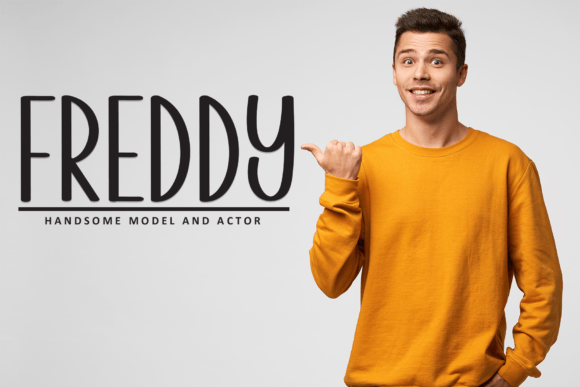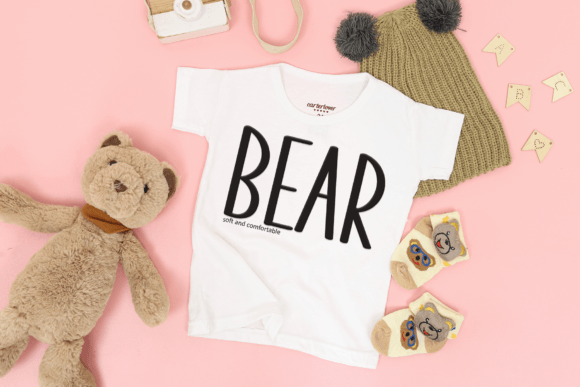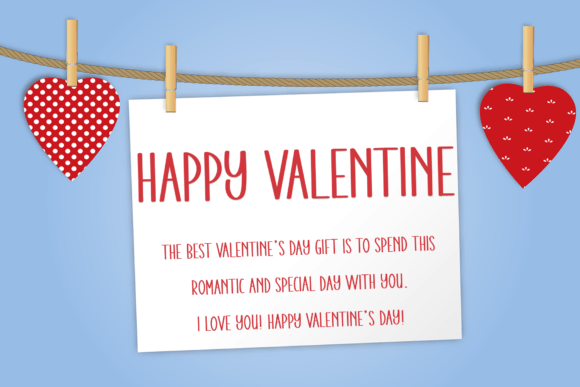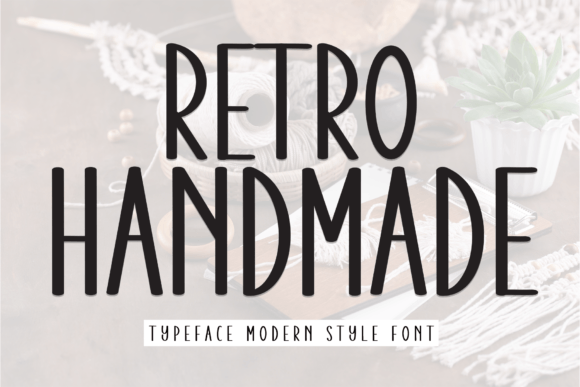
Introduction to Retro Handmade Font
Retro Handmade is a sweet and friendly handwritten font.
Fresh and neat, this font is ideal for writing wedding invitations, cards, or any other design that might need a fun touch .
Key Features of Retro Handmade Font